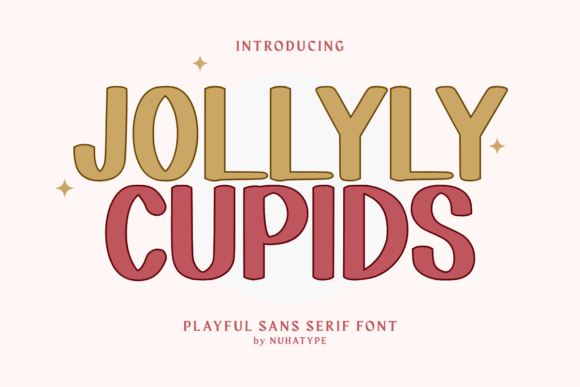
Jollyly Cupids: A Warm Sans Serif for Editorial Design
A Font with Personality
Jollyly Cupids is a sans serif font that brings a soft, friendly, and natural feel to any design. Its handcrafted appearance adds warmth and approachability, making it ideal for editorial projects where personality and readability are key. This typeface is not just visually appealing—it’s designed to support the reader’s experience while enhancing the overall aesthetic of your publication.
Editorial Design Made Easier
As an editorial designer or content creator, you know how important typography is in shaping the tone and structure of your work. Jollyly Cupids offers a versatile solution for various editorial applications, from blog headers to magazine covers. Its clean lines and gentle curves make it easy on the eye, ensuring that your content remains engaging without overwhelming the reader.
This font is particularly effective for headlines and subheadings. It can draw attention without being too bold or distracting. When paired with a more readable body font, Jollyly Cupids helps create a clear visual hierarchy that guides the reader through your content smoothly.
Branding and Visual Consistency
Consistency is crucial in building a strong brand identity. Jollyly Cupids supports this by offering a cohesive look across different elements of your publication. Whether you're designing a newsletter, an ebook, or a printable guide, using this font consistently helps reinforce your brand's voice and style.
Its friendly and approachable nature makes it especially well-suited for lifestyle blogs, recipe ebooks, and creative publications. The font’s warm personality aligns perfectly with these types of content, creating a connection between the reader and the material.
Readability Across Platforms
Readability is a top priority when designing for both digital and print formats. Jollyly Cupids performs well on screen, maintaining clarity even at smaller sizes. It also looks great in PDF exports and mobile layouts, ensuring your content remains accessible and legible across all devices.
For print, the font’s natural stroke variation adds character without sacrificing readability. It works well in magazines, brochures, and other printed materials where a handcrafted look is desired but still needs to be functional.
Font Pairing Tips
When pairing Jollyly Cupids with other fonts, consider its role in your design. For body text, pair it with a clean serif font like Georgia or Times New Roman to maintain readability. If you're using it for captions or navigation, a modern sans serif like Helvetica or Montserrat could complement it nicely.
For a more balanced approach, use Jollyly Cupids as a display font for headings and titles while keeping the body text in a more neutral, readable font. This combination ensures your content is both visually appealing and easy to read.
Practical Applications
Jollyly Cupids is incredibly versatile and can be used in a variety of ways. Here are some practical examples:
- Lifestyle Blog Headers: Use Jollyly Cupids for your blog title to create a welcoming and friendly first impression.
- Recipe Ebooks: Incorporate the font into your book title and chapter openers to add a personal touch.
- Wedding Guides: This font adds a romantic and elegant feel to wedding-related content, making it perfect for invitations and event planning materials.
- Coaching Workbooks: Use it for section headings and pull quotes to highlight key insights and keep readers engaged.
- Digital Magazines: Apply it to cover text and article titles to create a cohesive and inviting layout.
- Printable Planners: The font’s soft look works well with planners and calendars, adding a handcrafted element to your design.
- Creator Newsletters: Use Jollyly Cupids for subject lines and featured content to enhance the visual appeal of your emails.
Conclusion
Jollyly Cupids is more than just a font—it’s a tool that enhances the editorial experience. With its warm, friendly, and natural look, it supports both the design and the reader, making it an excellent choice for publishers, bloggers, and designers looking to create engaging and visually appealing content. Whether you’re crafting a lifestyle blog, a cookbook, or a digital magazine, Jollyly Cupids has the versatility and charm to bring your vision to life.